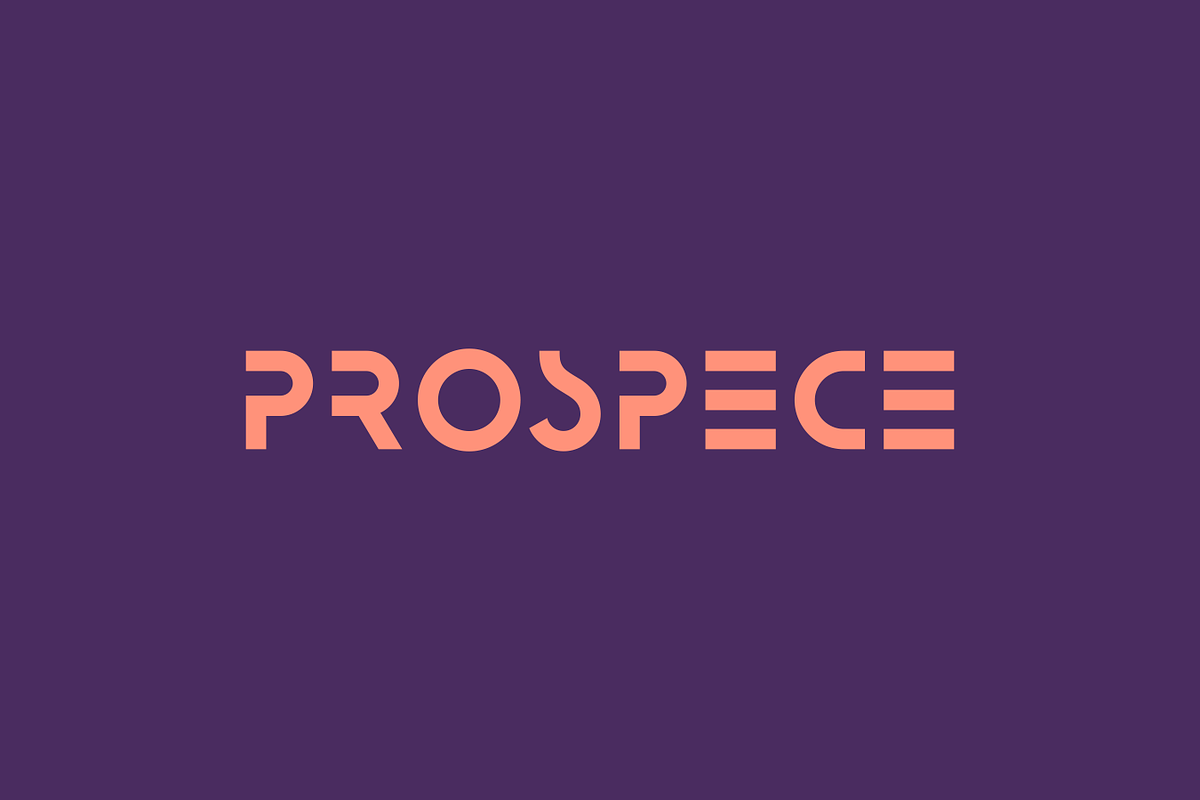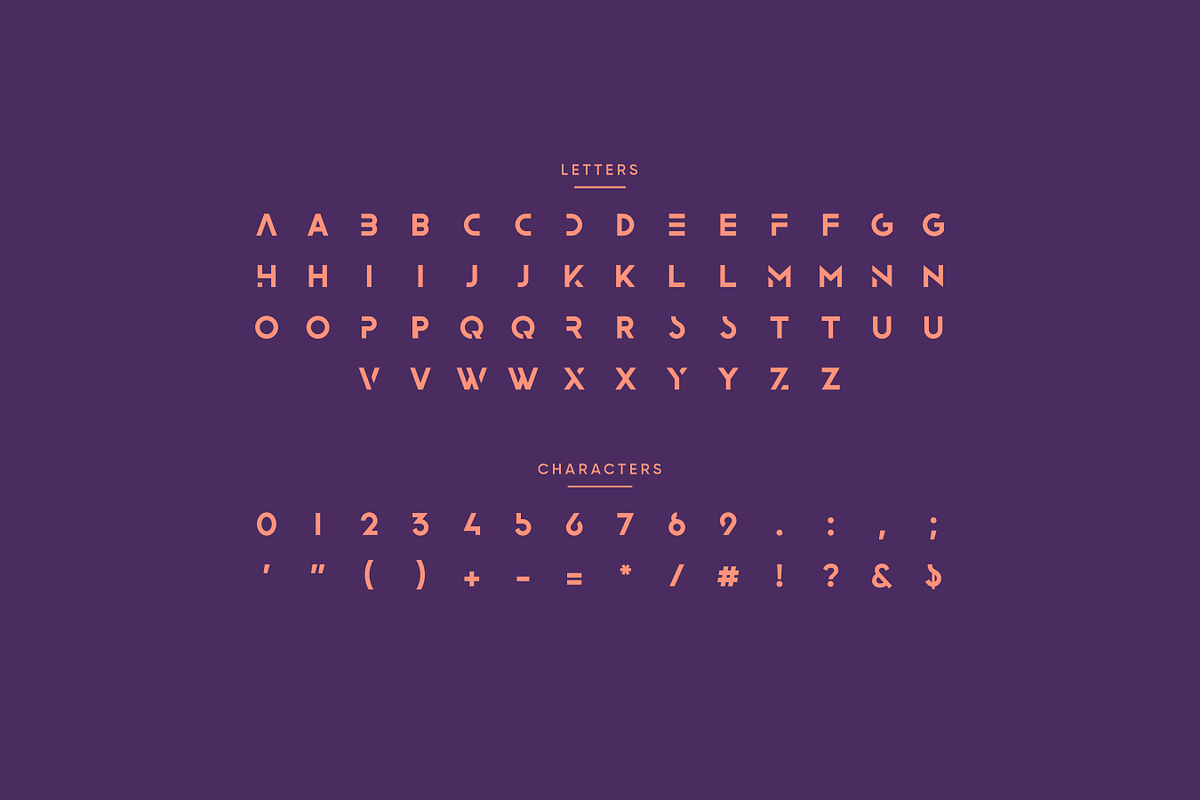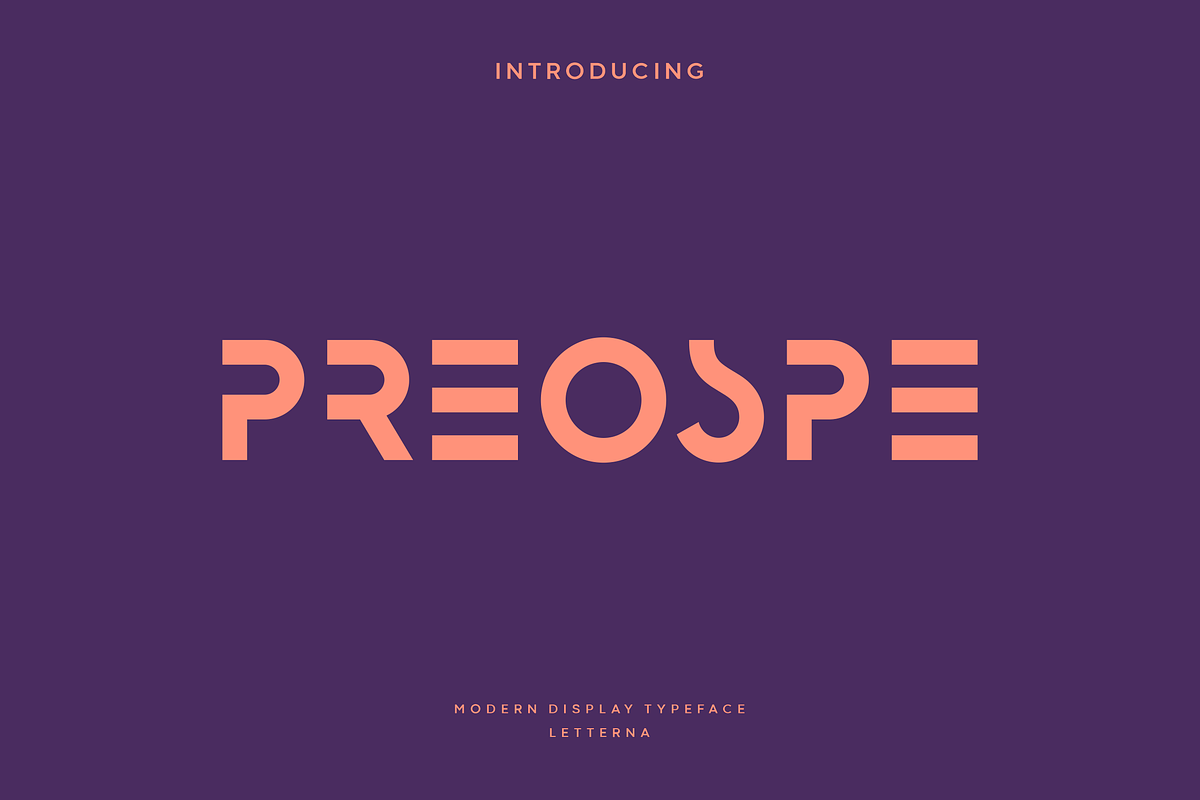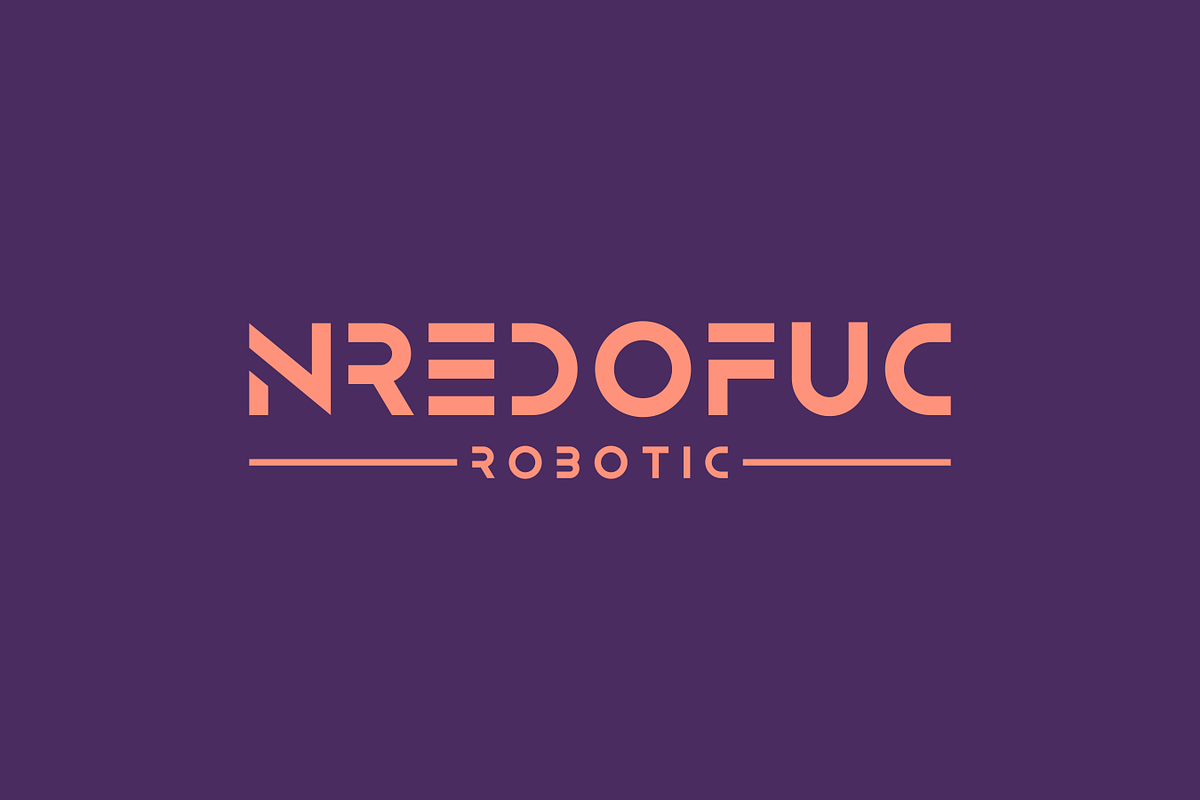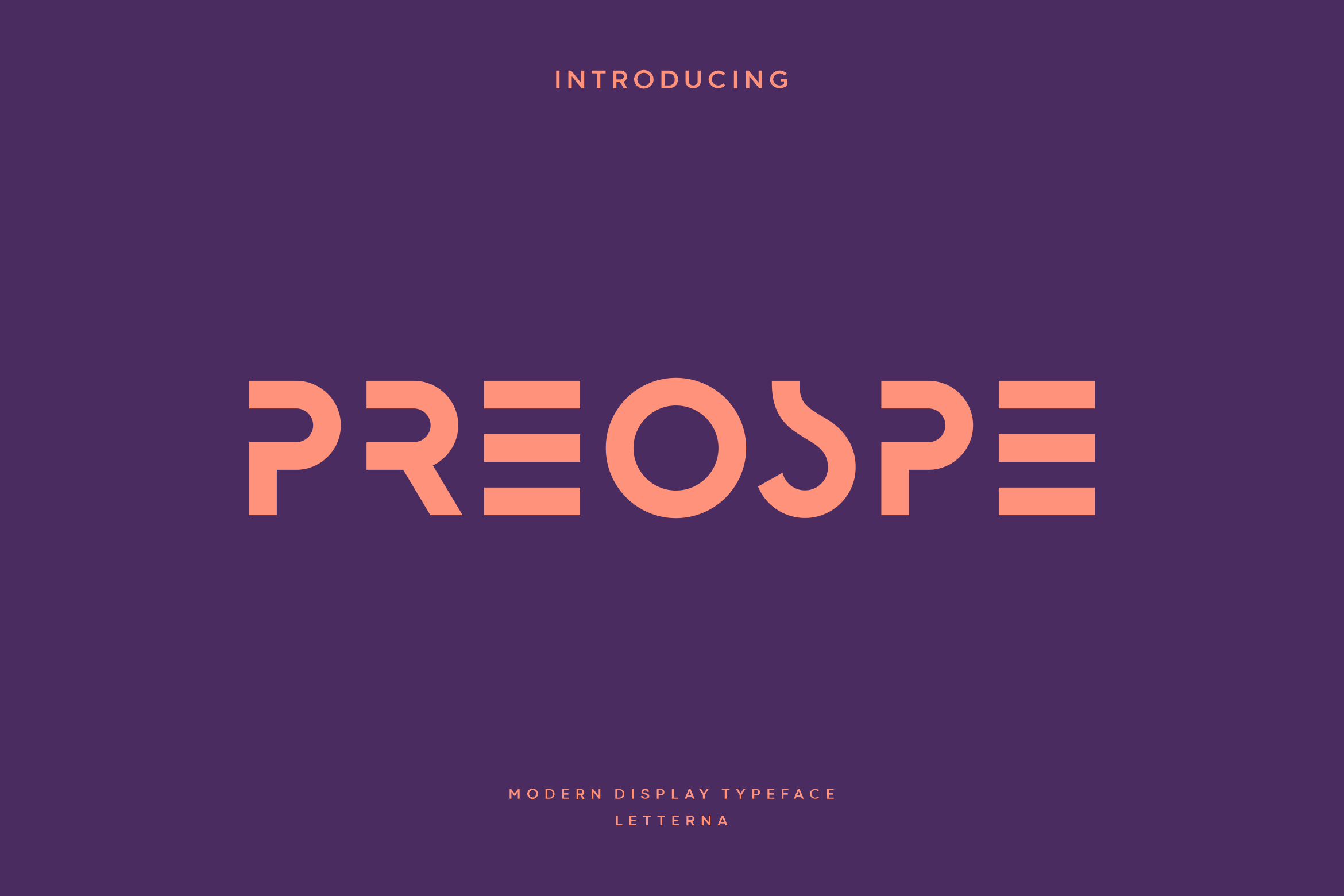
Preospe - Modern Futuristic Typeface
Preospe is a modern, elegant and futuristic look font. This font would be ideal for writing web designs, business cards, logo, magazine or just about anything else that requires a unique touch. With a sophisticated concept and very elegant shape that will look modern on future technology designs, don’t hesitate to have this font.
- Punctuation & Number